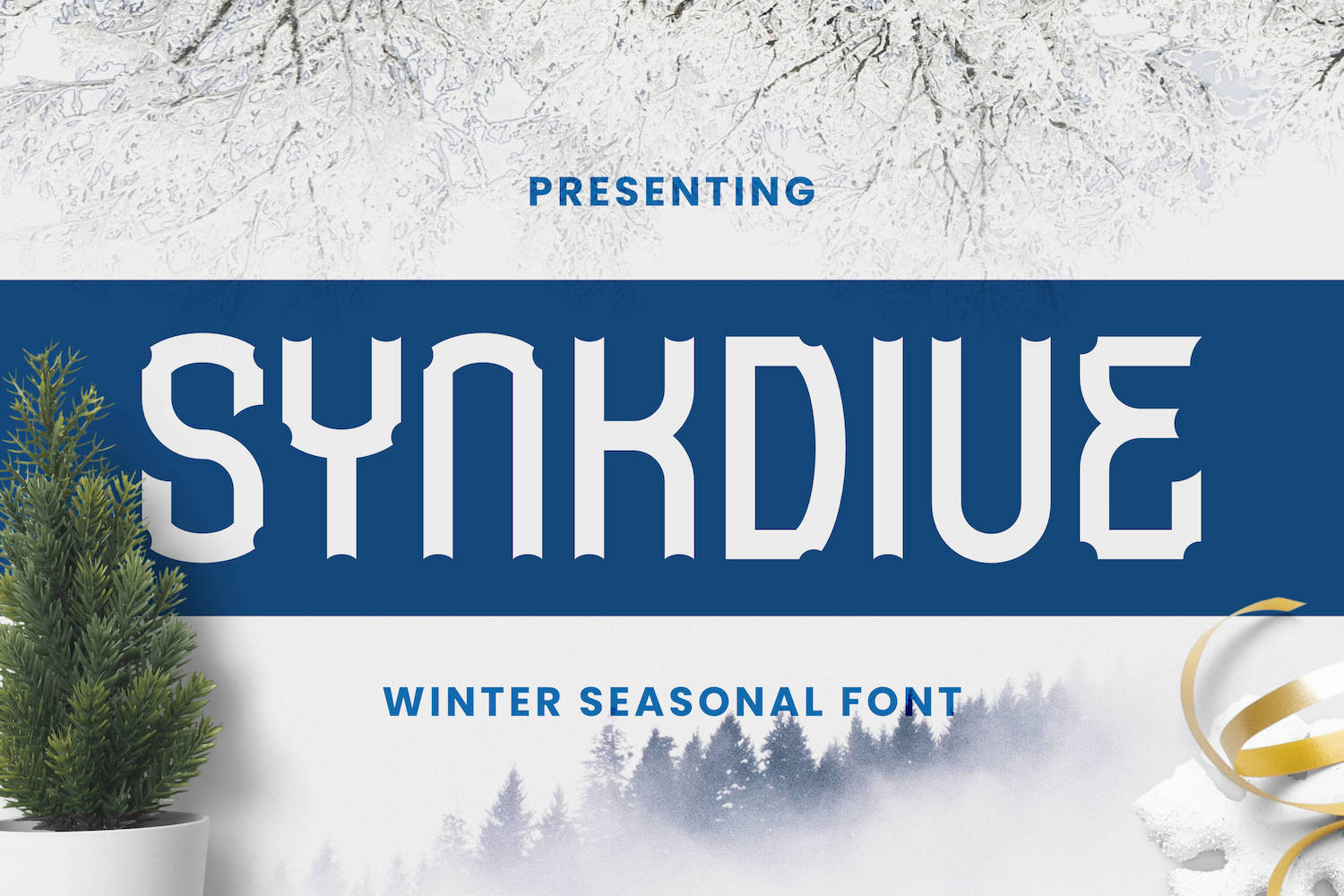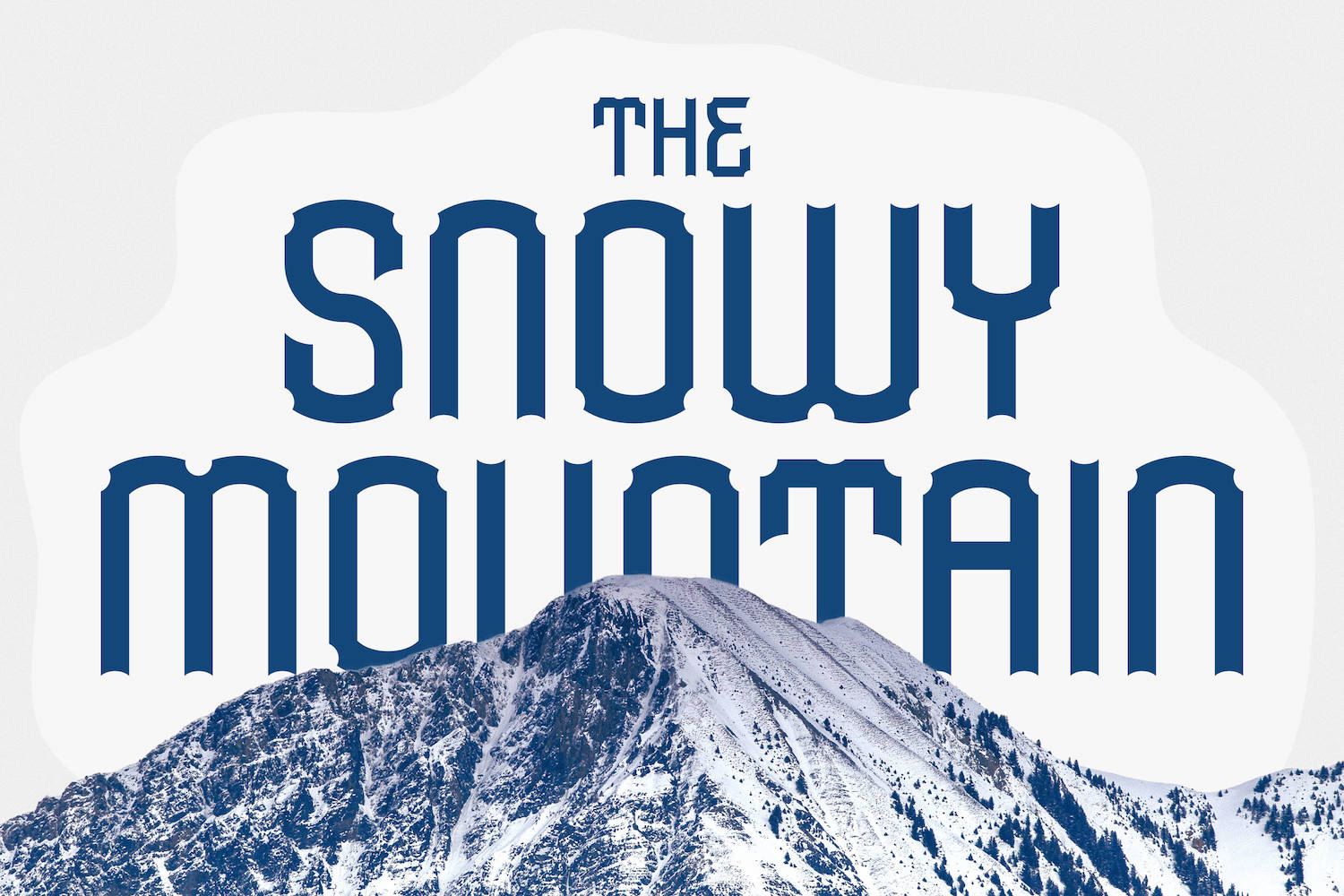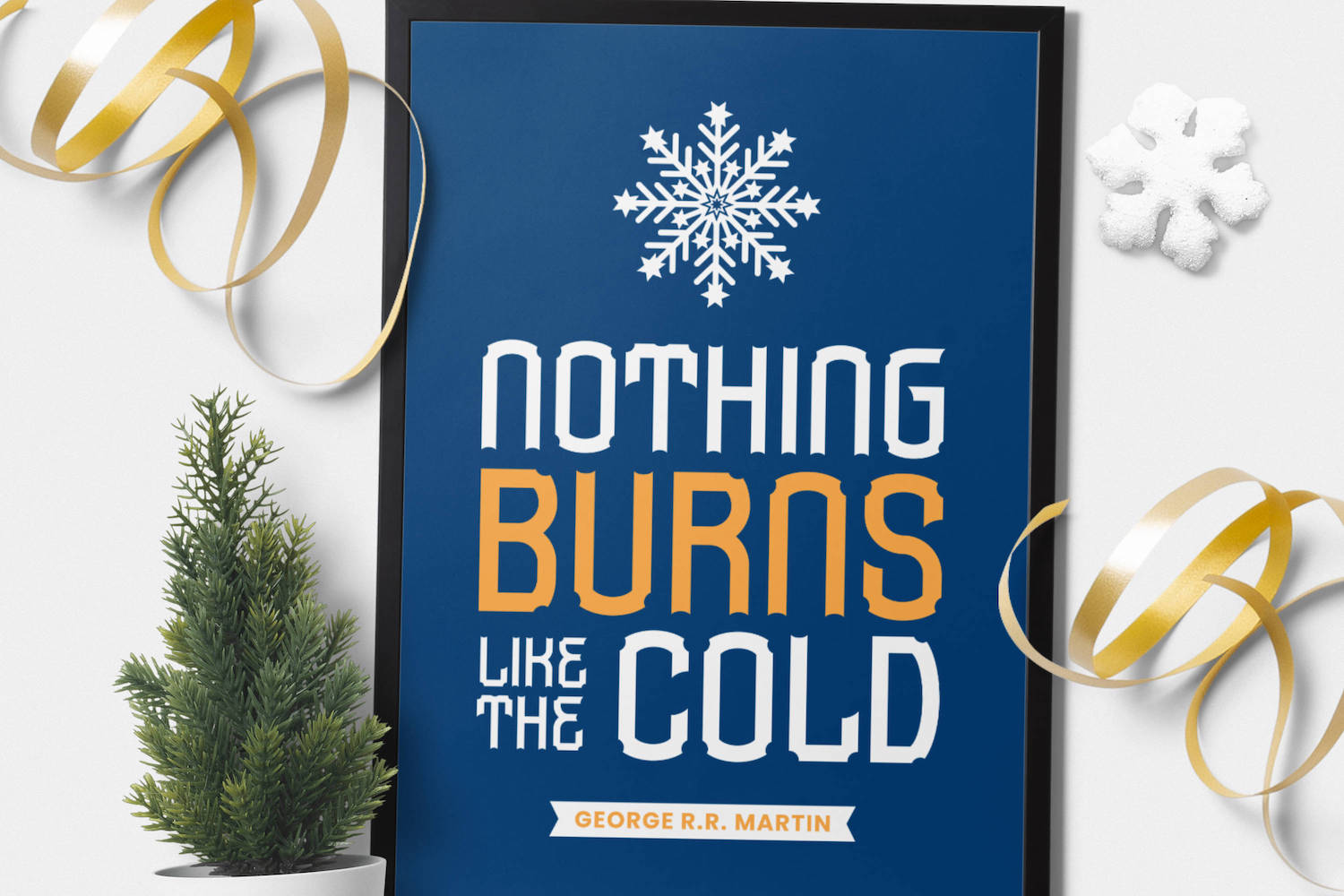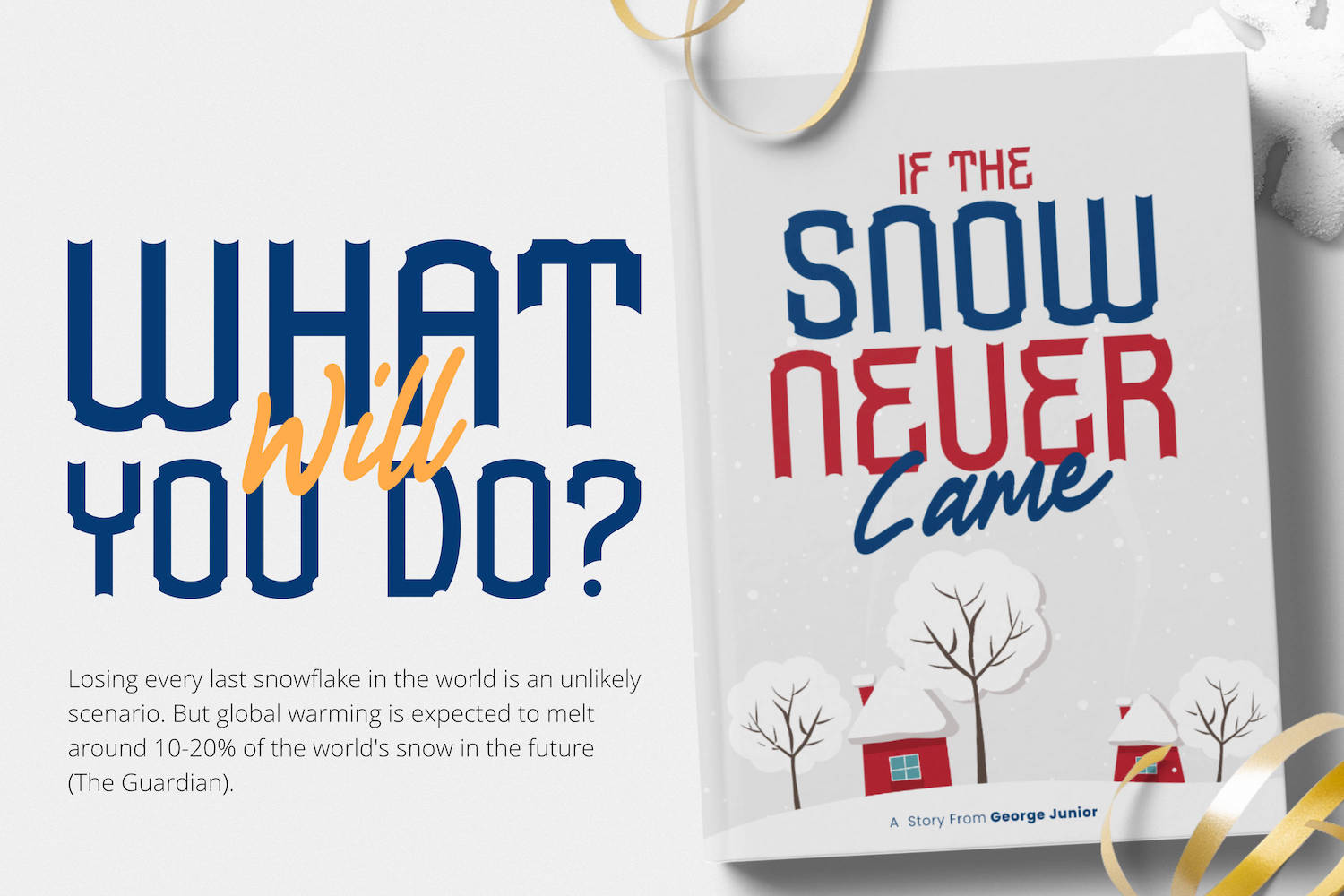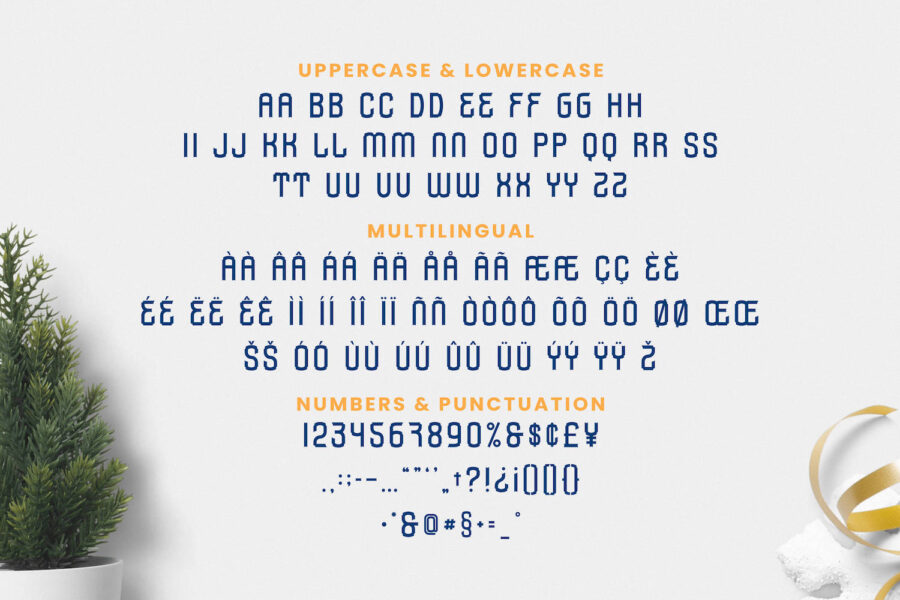
Synkdive is a bold, seasonal display font with a strong Gothic influence and a modern winter vibe. Designed to reflect the chilling elegance of snowy landscapes, this typeface features angular forms, clean lines, and subtle ornamental curves on selected terminals. The high contrast and structured shapes make it perfect for attention-grabbing headlines in winter-themed branding, book covers, apparel, and event posters.
This font supports multilingual characters and includes uppercase, lowercase, numbers, and punctuation—making it versatile for various creative needs. Whether you’re working on a holiday campaign, packaging design, or a frosty greeting card, Synkdive delivers a modern twist on a classic blackletter feel while staying playful and fresh.
Synkdive